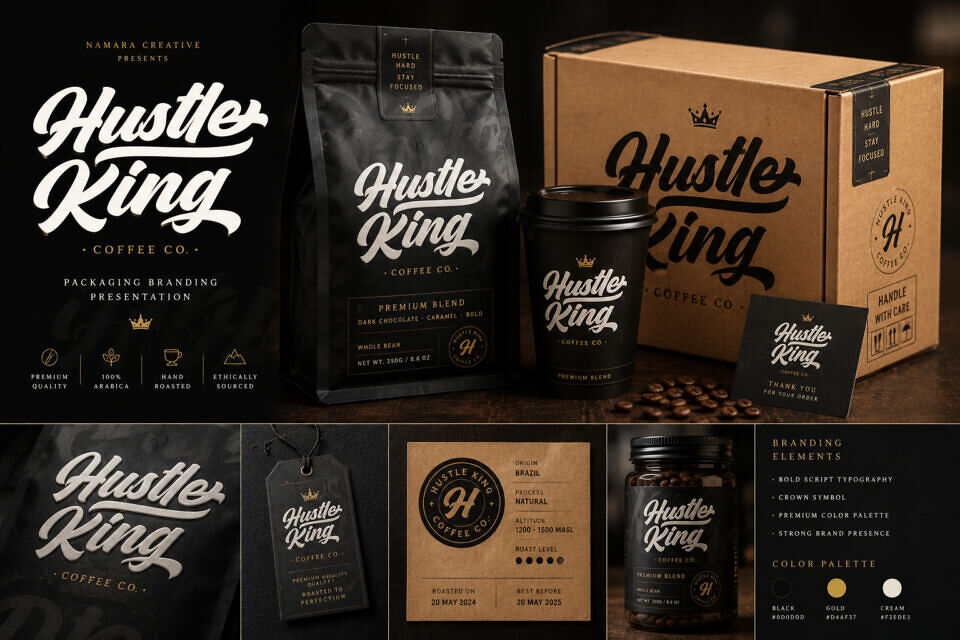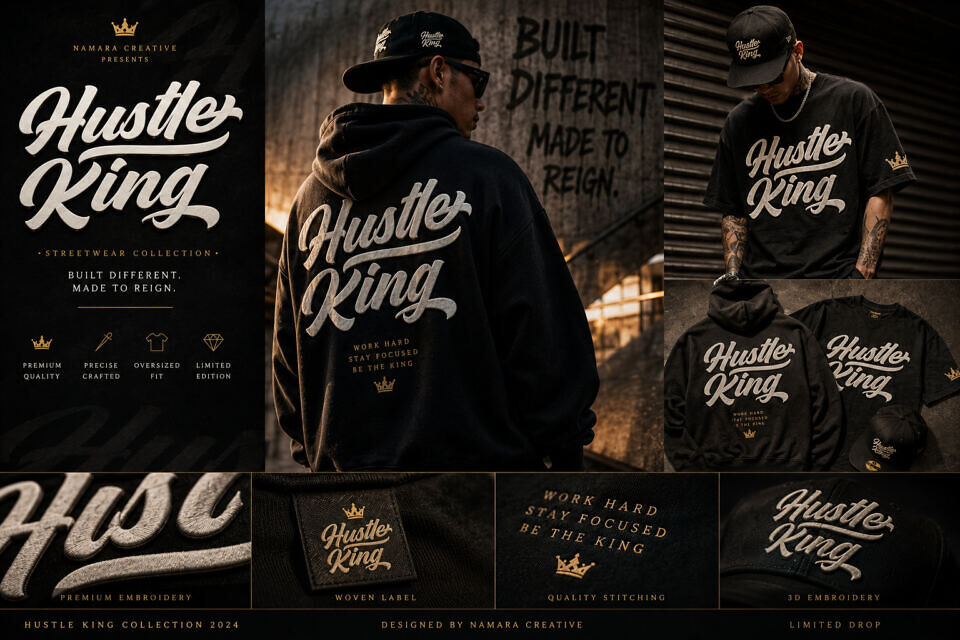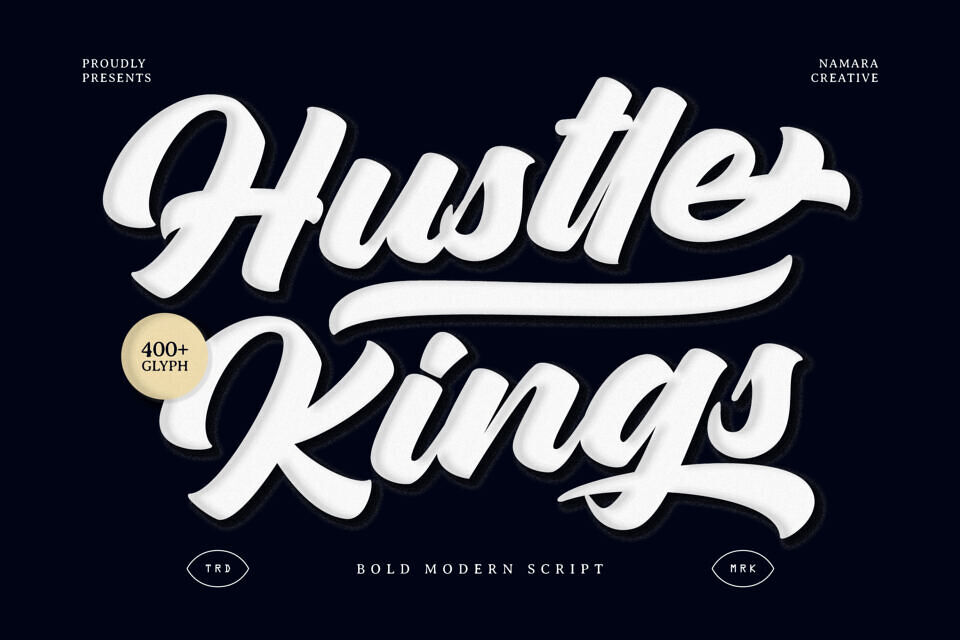
Hustle Kings Font
Hustle Kings is a bold modern script font designed to deliver strong visual impact with smooth, confident strokes. Featuring thick curves, dynamic swashes, and a sporty handwritten feel, this font blends classic script elegance with modern branding power.
Crafted for versatility, Hustle Kings works perfectly for logos, sports branding, streetwear, apparel, posters, packaging, advertising, social media graphics, and headline typography.